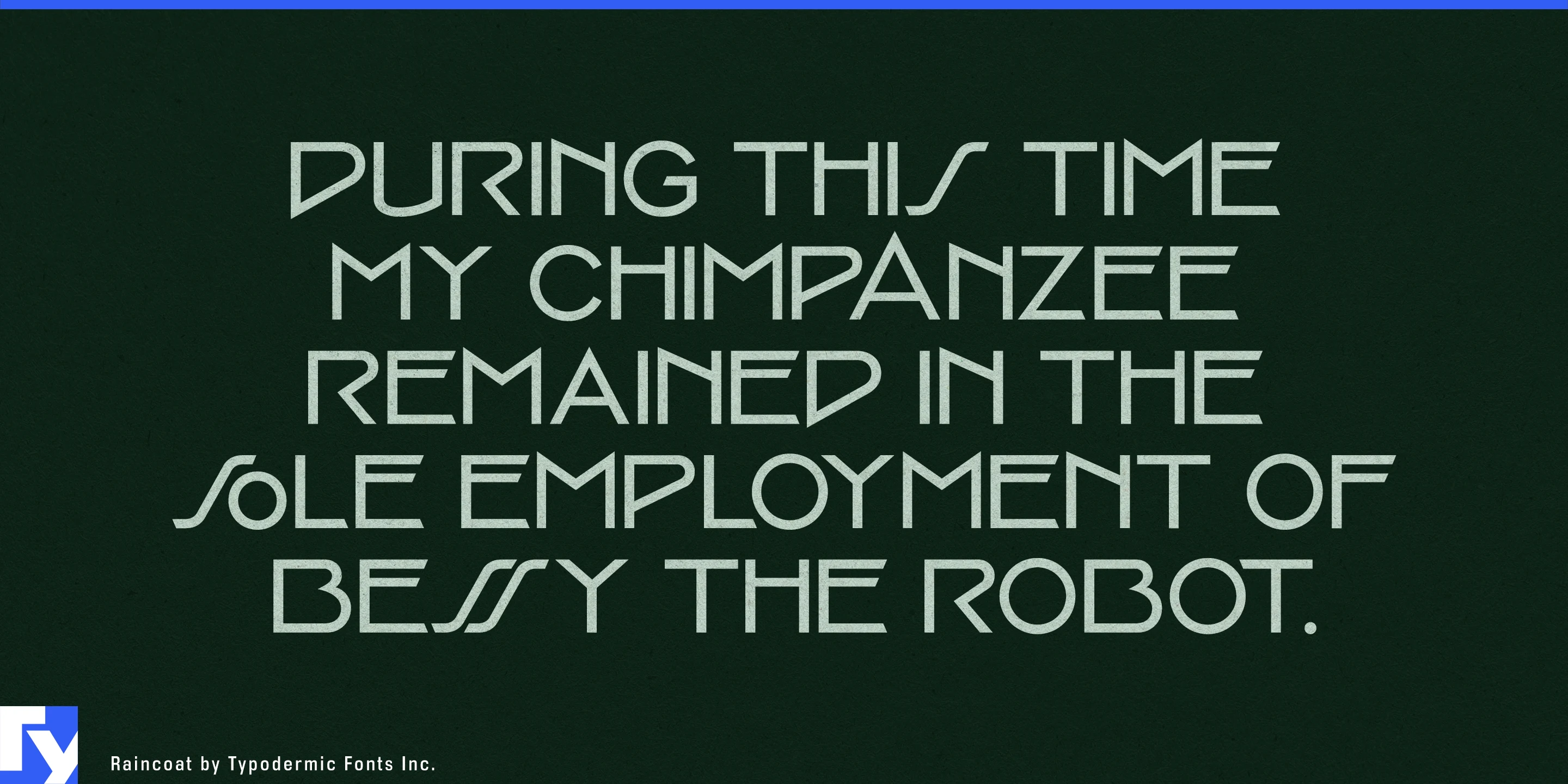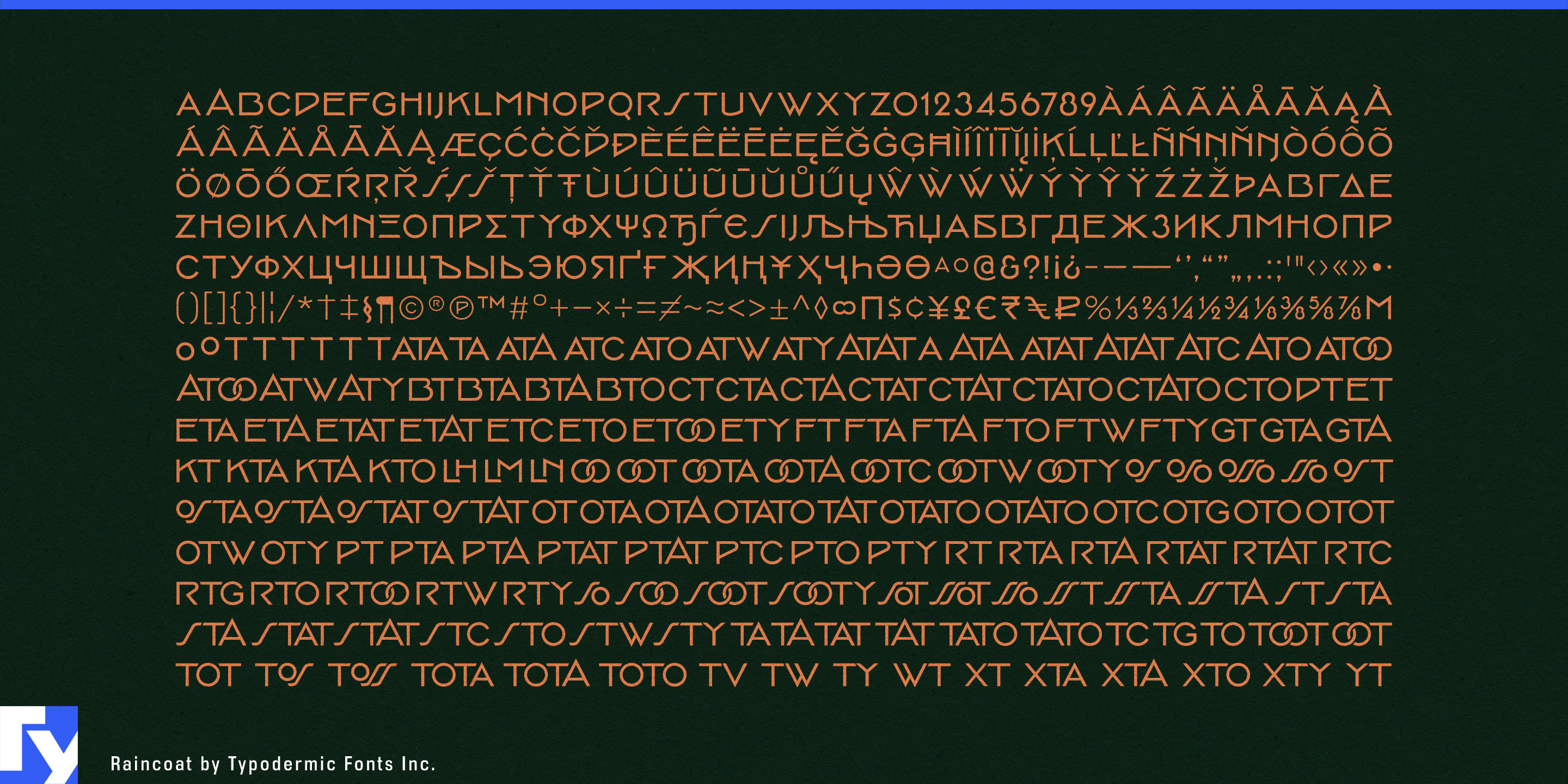
Raincoat
A geometric Art Deco font can give a name period style. What it usually cannot do is make that name feel as though the letters were drawn specifically to fit one another. Raincoat is built around that second problem. Its alternate forms and contextual combinations reshape short words, creating the fitted, inscription-like quality more often associated with custom lettering than ordinary typesetting.
Some adjustments are subtle. The angle at the end of a T can change according to the neighboring letter; certain combinations introduce a smaller O to improve the fit; other letters interlock or alter their structure as the word develops. A pointed alternate A can transform the silhouette of a name entirely, while Raincoat’s unusual S adds another distinctive interruption to the geometric construction.
That makes Raincoat particularly useful for boutique identities built around a memorable name. Milliners, bespoke tailors, jewelers, eyewear designers, bridal salons and accessory labels often need one short word to carry enormous visual weight. The same name may appear above a shop entrance, inside a presentation box, across tissue paper or on a small tag. Raincoat gives it enough internal variation to feel composed rather than simply typeset.
Jewelry and small luxury goods are especially natural territory. Compact names have to survive on boxes, pouches, engraved surfaces and window graphics without losing their identity. Raincoat’s narrow geometry keeps them controlled, while its fitted combinations can turn a simple sequence of capitals into something closer to a custom wordmark.
Architectural hospitality provides another strong setting. Boutique hotels, cocktail lounges, private clubs, restored theatres and destination restaurants often need a name that feels connected to the building itself. Raincoat can work on entrance lettering, brass doors, menu covers and interior signs where the identity should feel more like an architectural inscription than ordinary display type. Named buildings and residential developments can use the same quality on lobby walls, entrance canopies and sales material.
Niche fragrance, grooming and boutique cosmetics can use Raincoat as the signature layer above more practical typography. A fragrance name or product line can carry the distinctive lettering while a quieter companion face handles ingredients, specifications and longer text.
Raincoat is a single-style display face, and that concentration is part of its purpose. It is for the few words that have to carry the identity: the name over the door, the lettering on the box, the title on the wall. Its responsive letter combinations, pointed A and unusual S give those words some of the attention normally reserved for custom lettering.